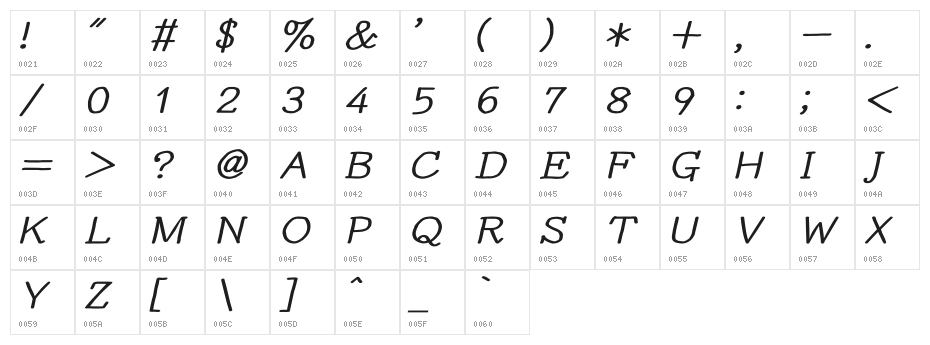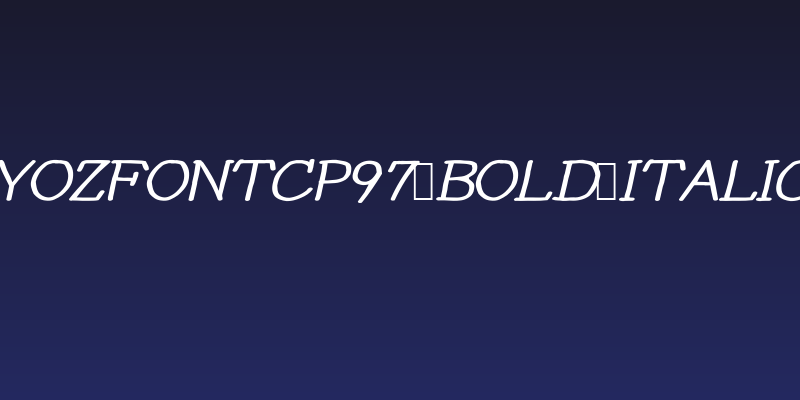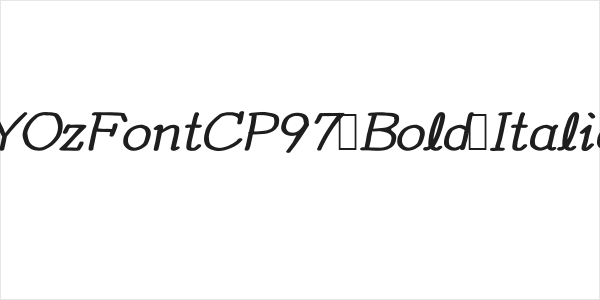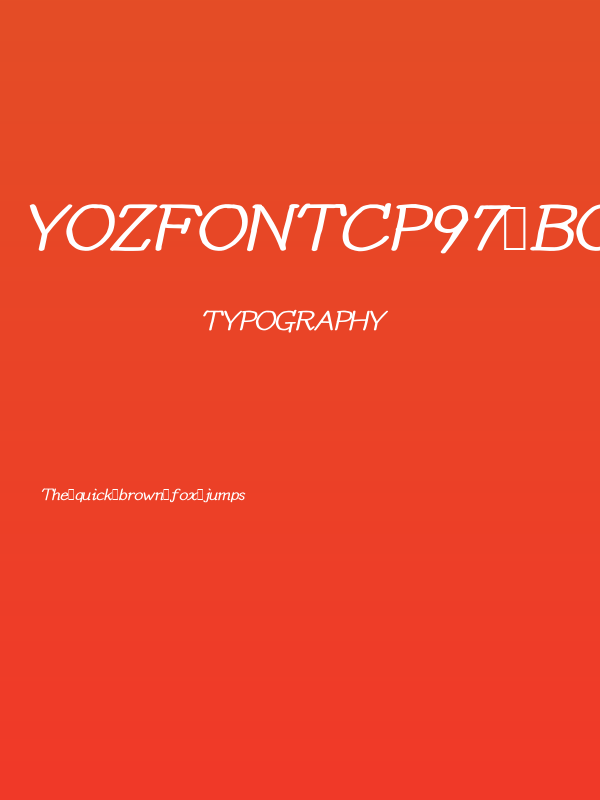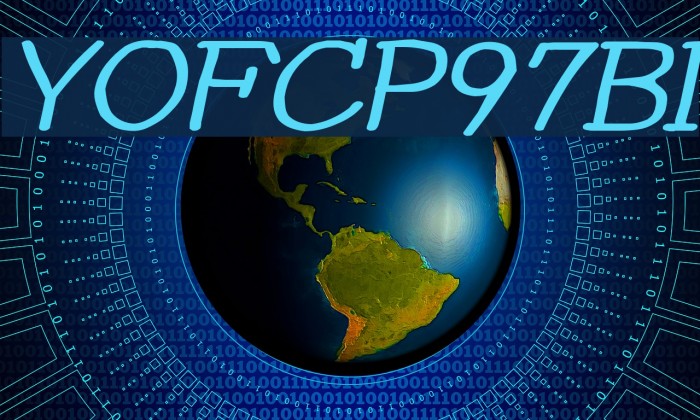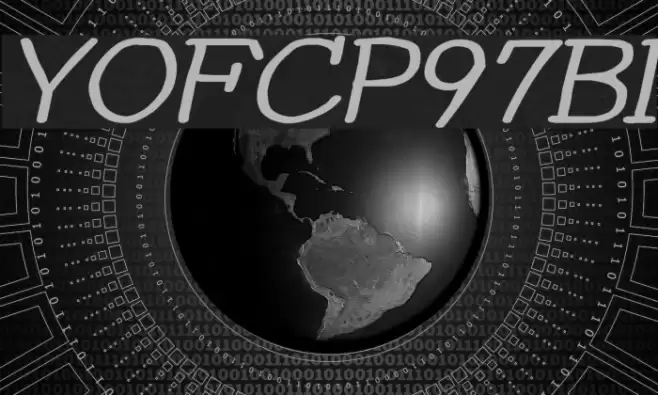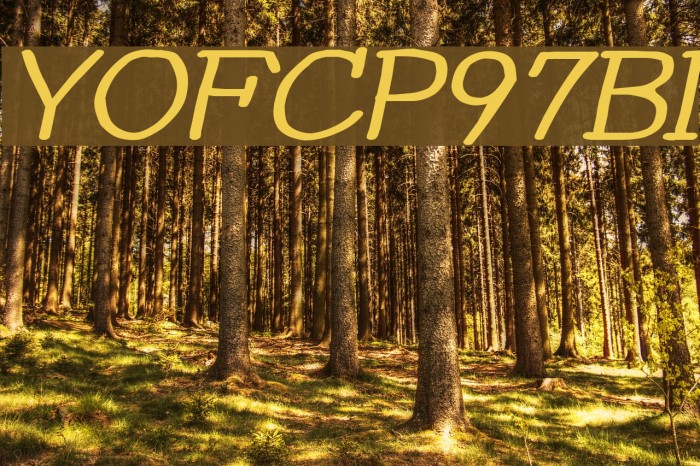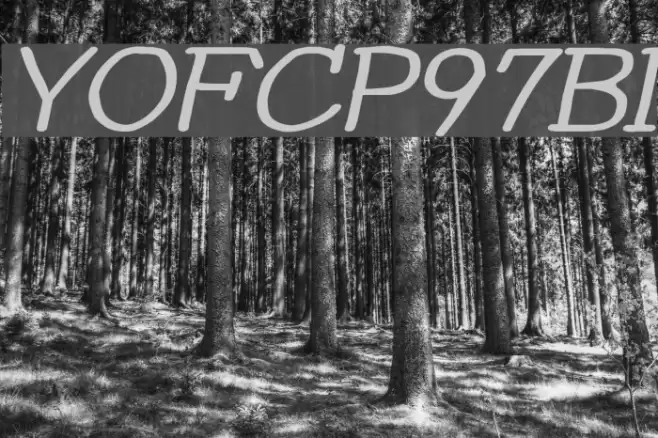
YOzFontCP97 Bold Italic Font
YOzFontCP97 Bold Italic Description
This font features a bold and italic style, characterized by its dynamic and flowing letterforms. The uppercase letters are elegantly slanted, giving a sense of movement and sophistication. The lowercase letters maintain a consistent slant, enhancing readability while adding a touch of flair. Numbers are clear and bold, ensuring they stand out in any context. Special characters are designed with the same attention to detail, ensuring they integrate seamlessly with the alphabetic characters. The overall design is modern yet retains a classic appeal, making it versatile for various applications.
| Use Case | Headlines, Logos, Invitations |
| Proposed Projects | Ideal for branding projects, elegant invitations, stylish posters, and dynamic web design. |